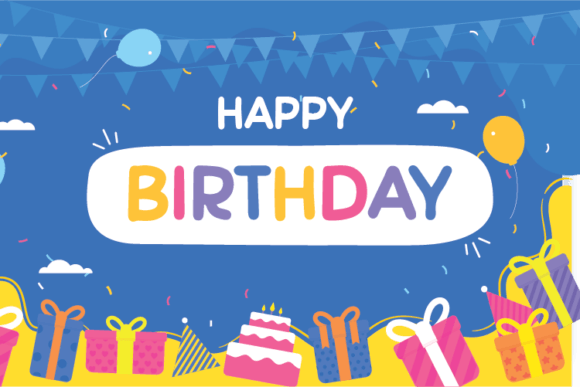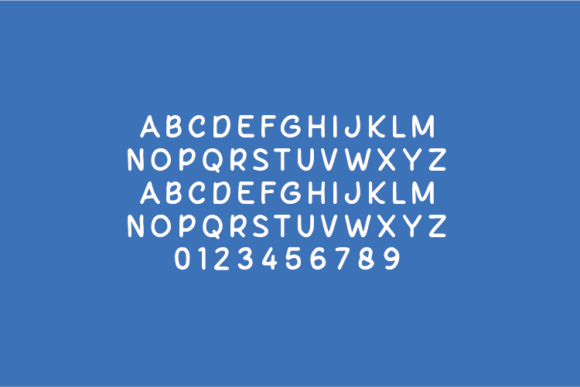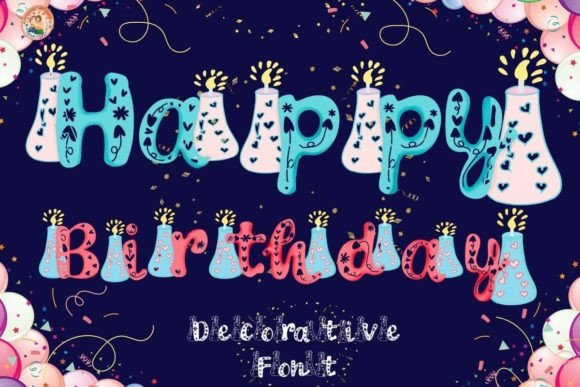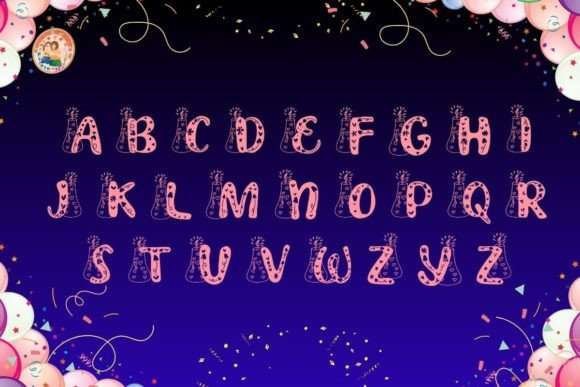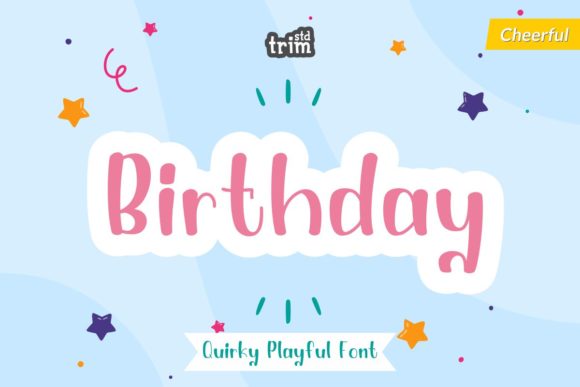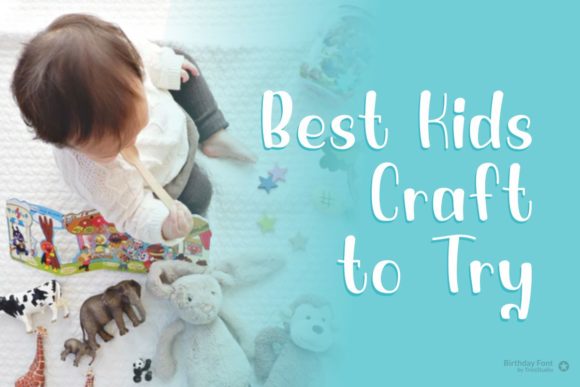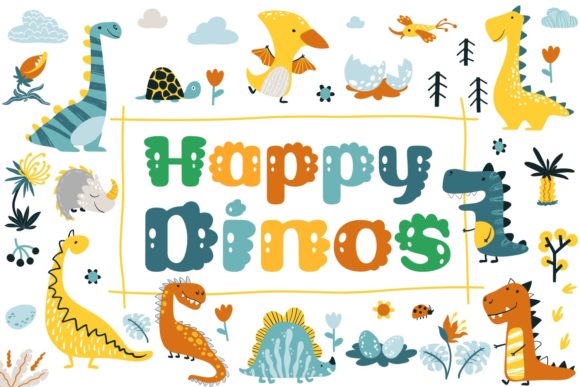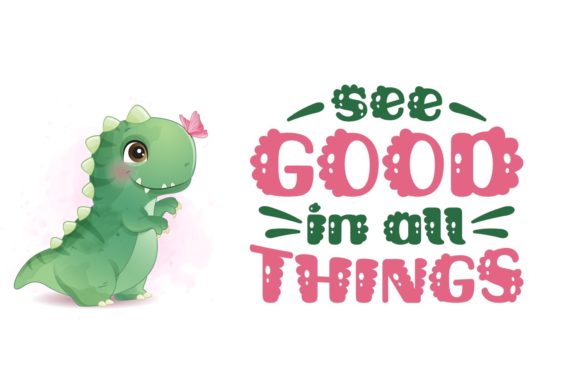
15 Best Happy Birthday Fonts to Celebrate Your Next Special Event
Finding the perfect Birthday Font is essential for giving your celebration the right visual touch. Whether you are crafting personalized party invitations, vibrant banners, or social media announcements, typography sets the mood for your entire event. Choosing high-quality lettering can turn a simple design into a memorable masterpiece. In this guide, we explore 15 top-tier options to ensure your project shines.
Why Choose Professional Happy Birthday Fonts?
Using specialized lettering is essential for capturing the celebratory spirit of a party. The right set of Happy Birthday Fonts can help you achieve a professional look without needing expert graphic design skills. From whimsical scripts to bold, adventurous styles, here are our top picks to help you elevate your next creative project.
Birthday Font
This festive typeface is perfect for creating greeting cards, party decorations, and children’s projects. It adds a playful, charming touch to every design you create.
Birthday Font
This vibrant font is the perfect choice for creating festive party banners and personalized gifts. Its expressive style brings a joyful atmosphere to any project.
Birthday Font
This playful and festive typeface is an essential addition to any collection of Happy Birthday Fonts. Use it for invitations and decorations that require a joyful, celebratory touch.
Happy Dinos Font
Happy Dinos is a fun and playful typeface. It is ideal for crafting cheerful designs, thematic party invitations, and lighthearted birthday projects.
Happy Romance Font
This delightful font is perfect for creating romantic themes and serves as a charming addition to any creative library. It adds a sophisticated touch to your designs.
Happy Easter Egg Font
This whimsical and playful font from our collection of Happy Birthday Fonts is perfect for crafting themed cards and unique greetings. Its cheerful aesthetic adds a touch of vibrancy to every project.
Happy Winter Font
This charming font provides a cozy winter theme. It is the perfect choice for crafting festive cards that stand out with their inviting style.
Happy Rabbit Font
A playful and charming typeface, this font is ideal for festive designs and unique birthday-themed projects, bringing a touch of whimsical joy to any illustration.
Candy Girls Font
Candy Girls is a whimsical script font. It is the perfect choice for anyone looking to incorporate lively and joyful aesthetics into their celebratory designs.
Mama Charm Font
This charming and playful font is perfect for crafting greeting cards and delightful typography. It remains one of our favorite Happy Birthday Fonts for projects that require a heartfelt, warm feel.
Play Stars Font
This dynamic typeface is perfect for birthday cards. It brings a sense of celebration and endless joy to all your creative design layouts.
Dollia Kids Font
Dollia Kids is a charming typeface. It is ideal for creating vibrant, kid-friendly birthday designs and party invitations that stand out.
Happy Birthday Font
This festive font is perfect for designing invitations, greeting cards, and thematic event decorations where a high level of artistry is required.
Happy Birthday Font
This typeface is explicitly suited for projects where you need a playful and cheerful vibe. It is an excellent choice for crafting vibrant greeting cards and banners.
Happy Birthday Font
This festive font is a classic choice for designing invitations and greeting cards, adding a fun and playful atmosphere to any celebration you are hosting.
Conclusion
Selecting the perfect typeface is a game-changer when it comes to party planning and stationery design. With these 15 premium options, you now have the tools to create stunning visuals that impress your guests and bring a unique flair to every celebration. Start experimenting with these styles to see which best captures the personality of your next birthday project.